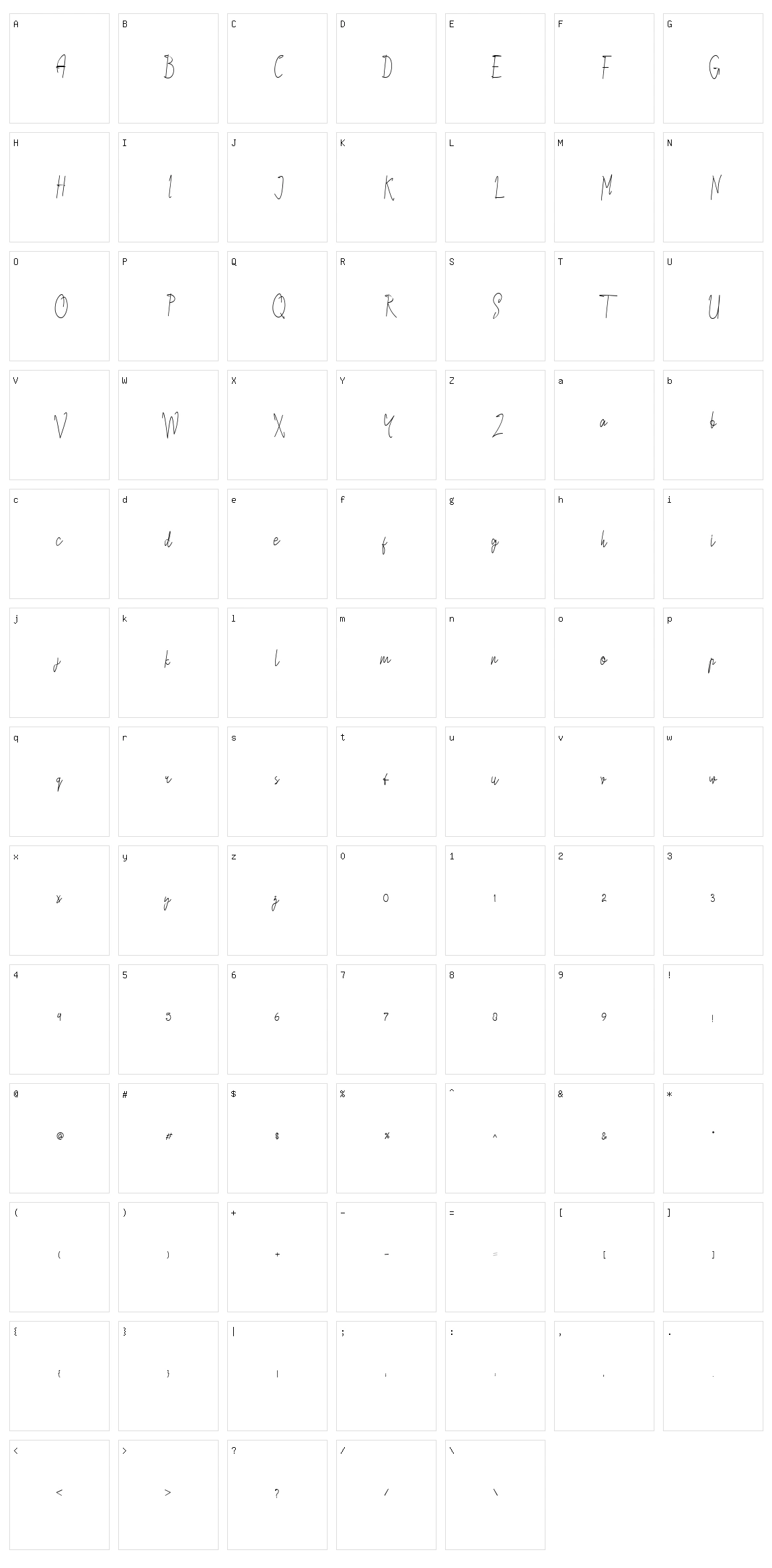
The free font Whinter is carefully designed by Revublikata, showcasing a thoughtful balance of creativity and usability and falls under the Script font style. When you download the ZIP file, it contains only 24.24 KB of font files, making it lightweight and quick to download. Please review the license details below to understand permitted usage and distribution rights. If license information is not available, we recommend using this font for personal projects only or contacting the author directly for commercial usage permissions.